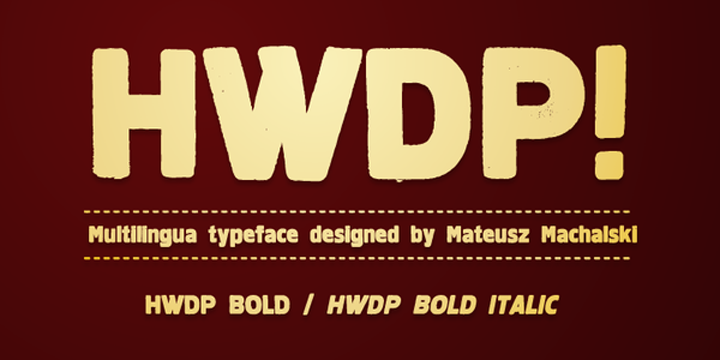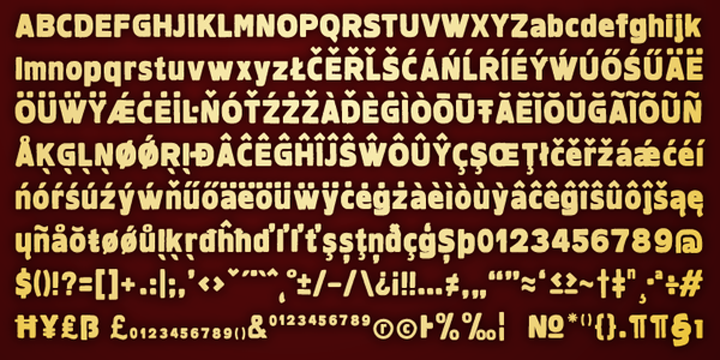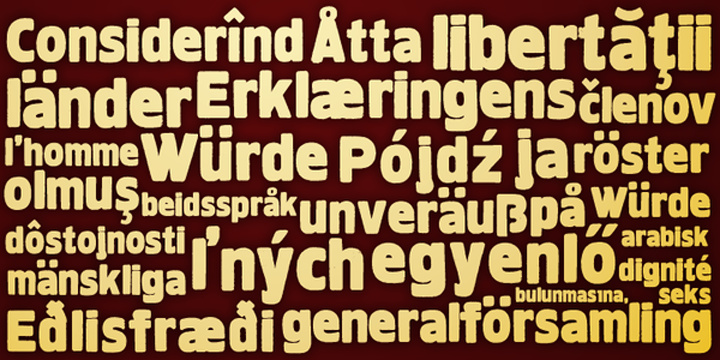
HWDP
HWDP is a display sans and kids font family. This typeface has two styles and was published by BORUTTA.
HWDP is heavy letterpress type.
HWDP has two style: bold and bold italic.
This type looks great in headlines and longer text.